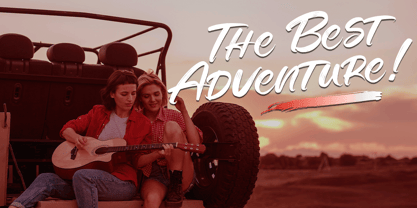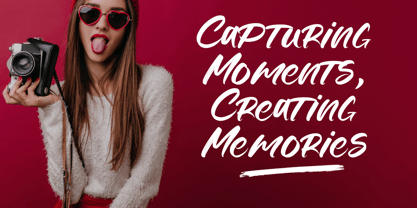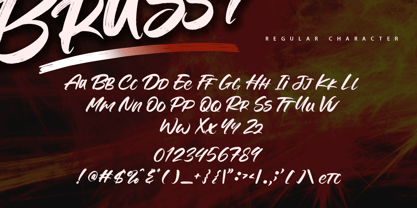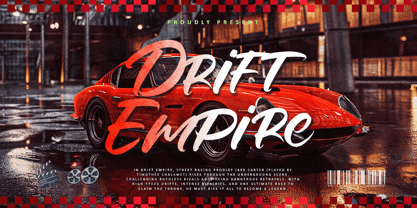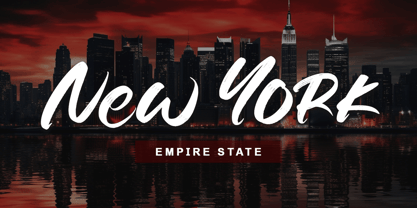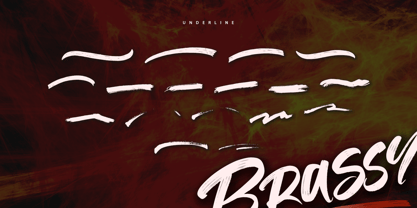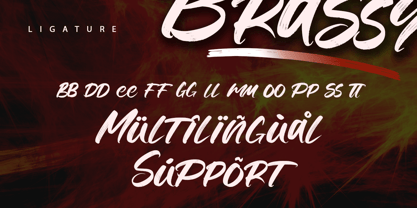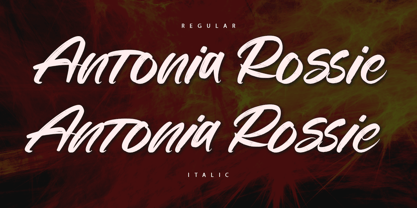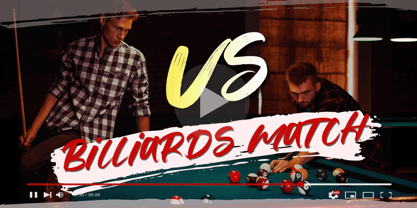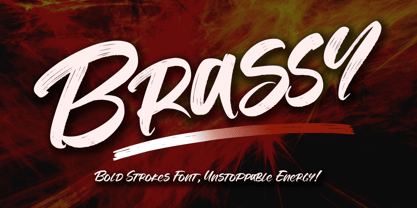
Brassy
by Letterara
The Brassy Font Family was designed by Thomas Aradea and published by Letterara. Brassy contains 2 styles and family package options. More about this family
Introducing Brassy, a bold and energetic brush font that exudes confidence and raw expression. With powerful strokes and a rugged, textured finish, Brassy brings a dynamic, handcrafted touch to your designs. Perfect for striking logos, bold headlines, and edgy branding, this font radiates movement and intensity. It's fluid letterforms and expressive glyphs add character and impact, while PUA encoding ensures seamless access to unique features. Elevate your designs with Brassy—a font that commands attention and delivers unstoppable creative energy.
Designers: Thomas Aradea
Foundry: Letterara